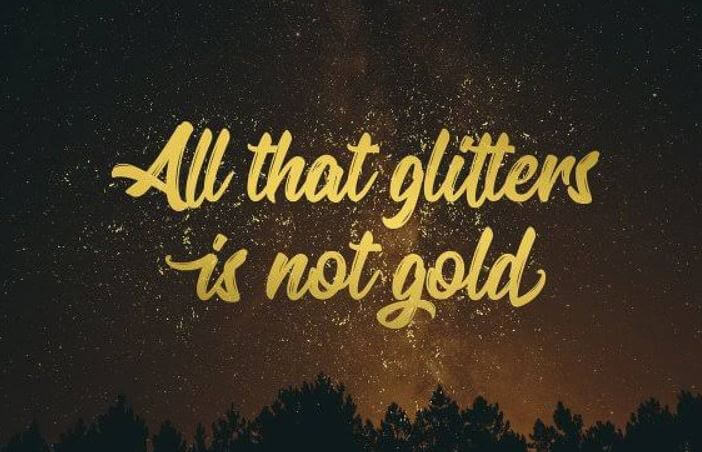
Oraqle Script Font
Oraqle script font, a brush lettering font from 50fox that features formidable strokes and actual brush texture so one can make your design stand out. Oraqle script additionally has a marvelous motion with a smooth look.
Oraqle fits that invoice because it creates an interesting typeface this is nevertheless legible and easy to observe. Every with comparing italic and little tops styles, additionally consolidated and american typewriter font.
Styles of Oraqle Script Font
You may use it for all your desires, consisting of emblems, published costs, badges, insignias, packaging, headlines, posters, t-shirts/apparels, greeting cards, and wedding ceremony invitations, & and so forth.
Oraqle can be implemented to each identifies and frame textual content, as well as work perfectly with different eurostile font. A face becomes discharged for open use below the name Benton sans and the retropus font.